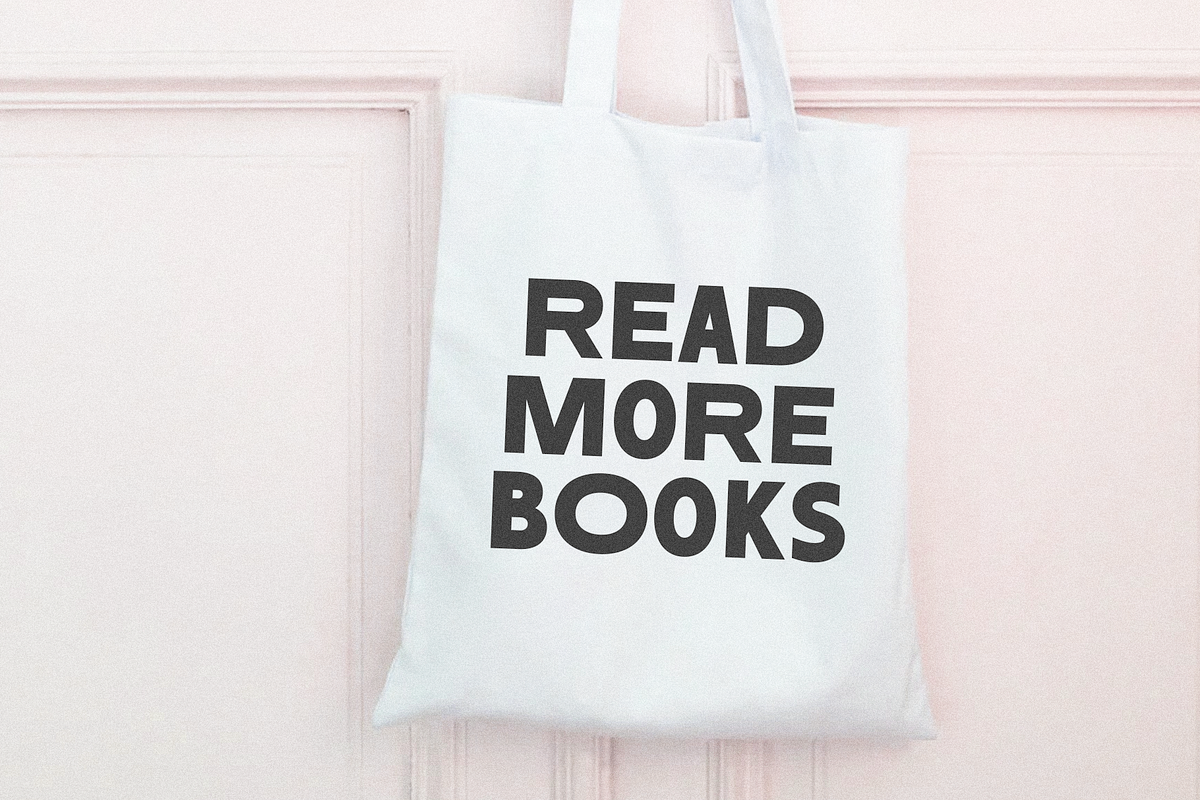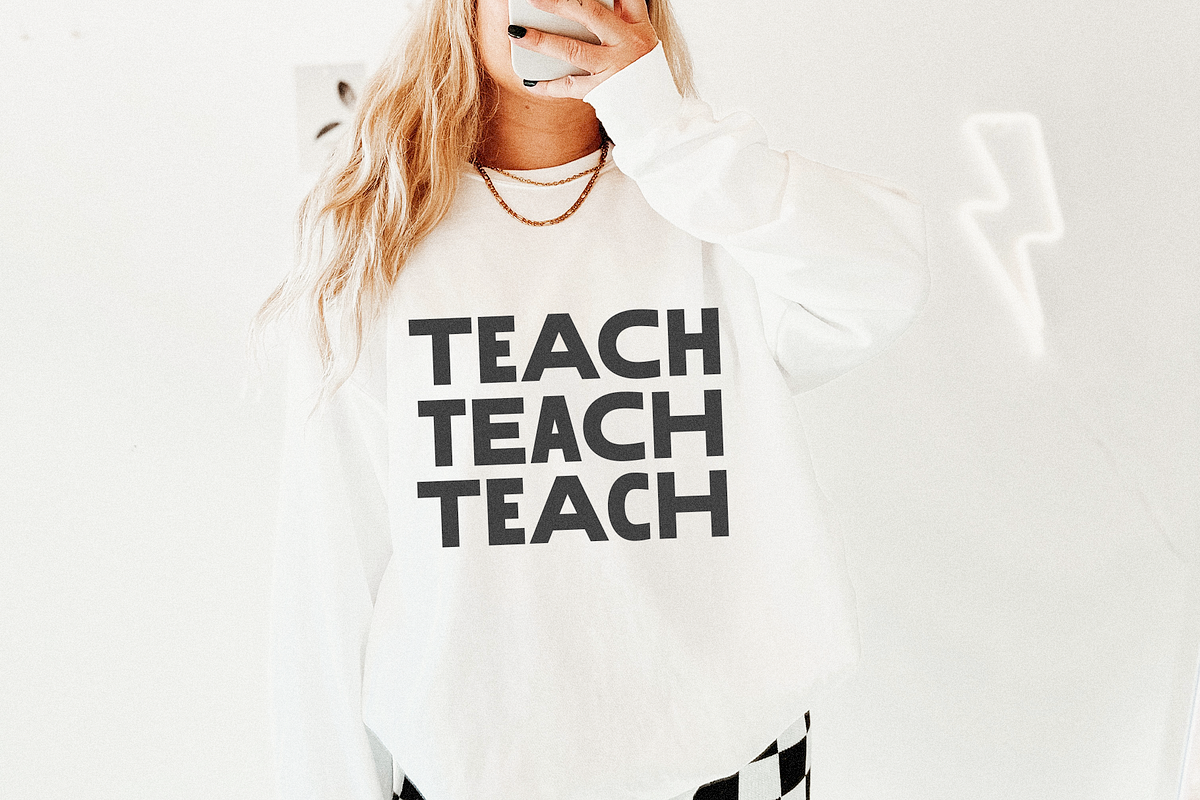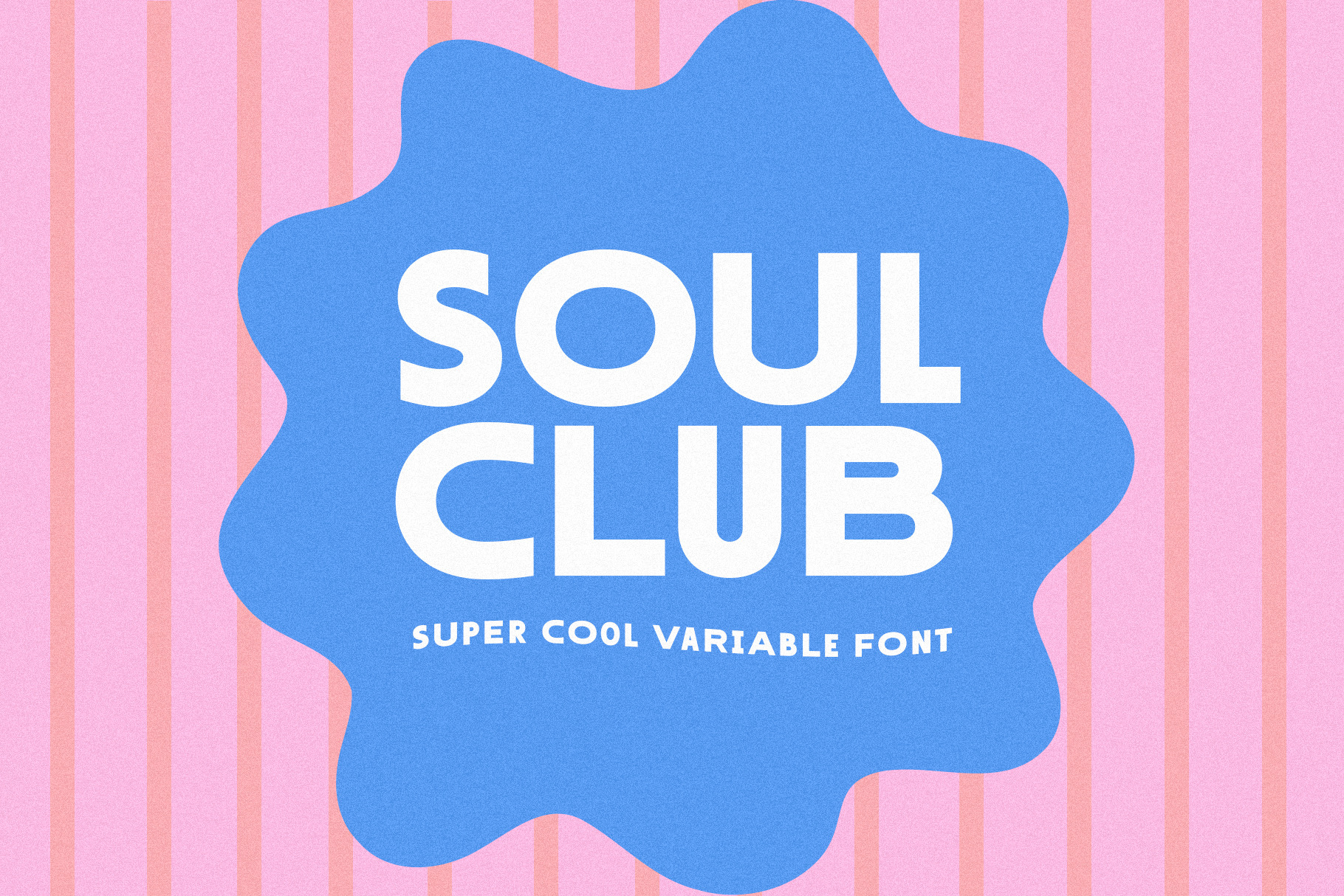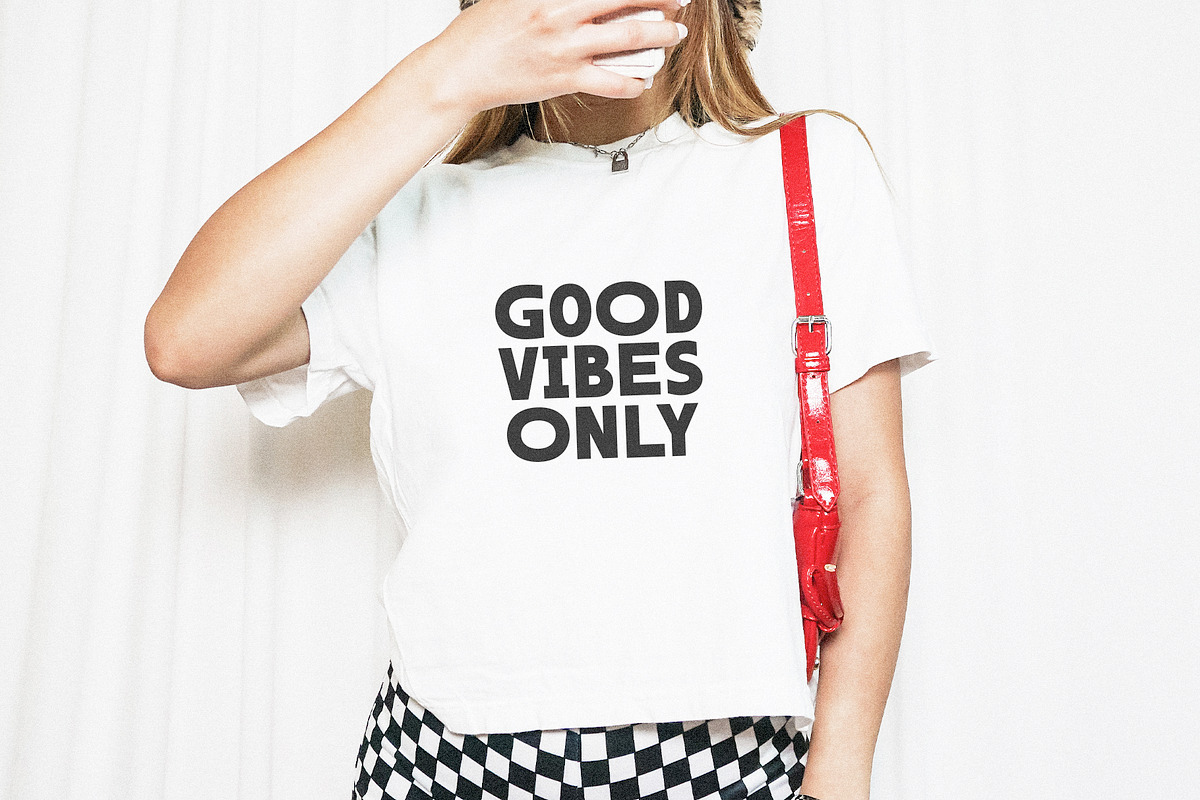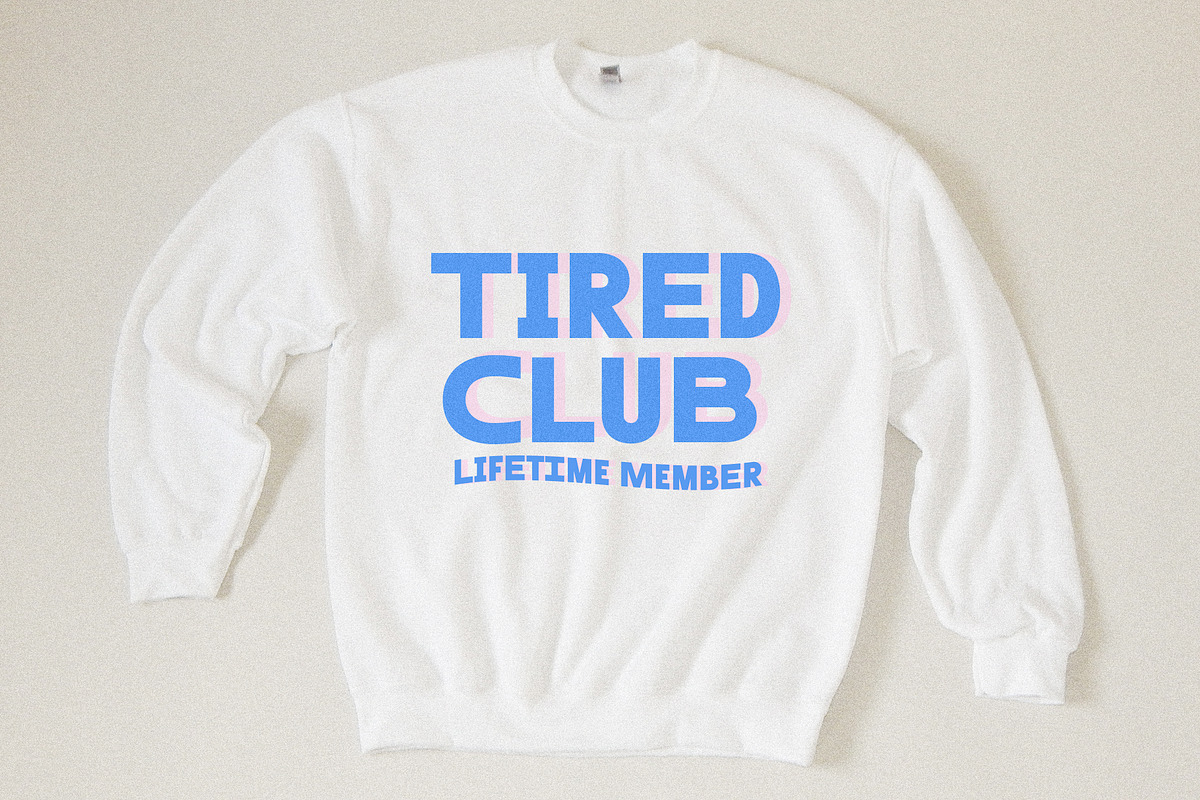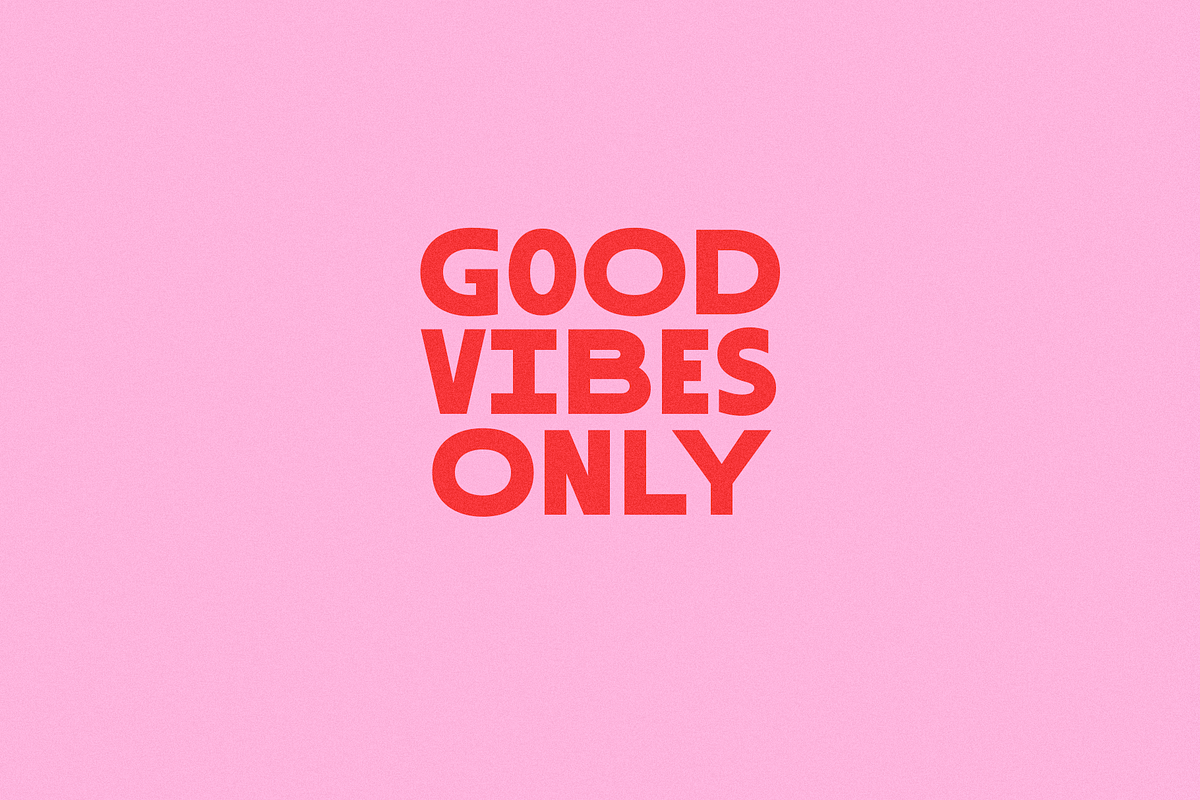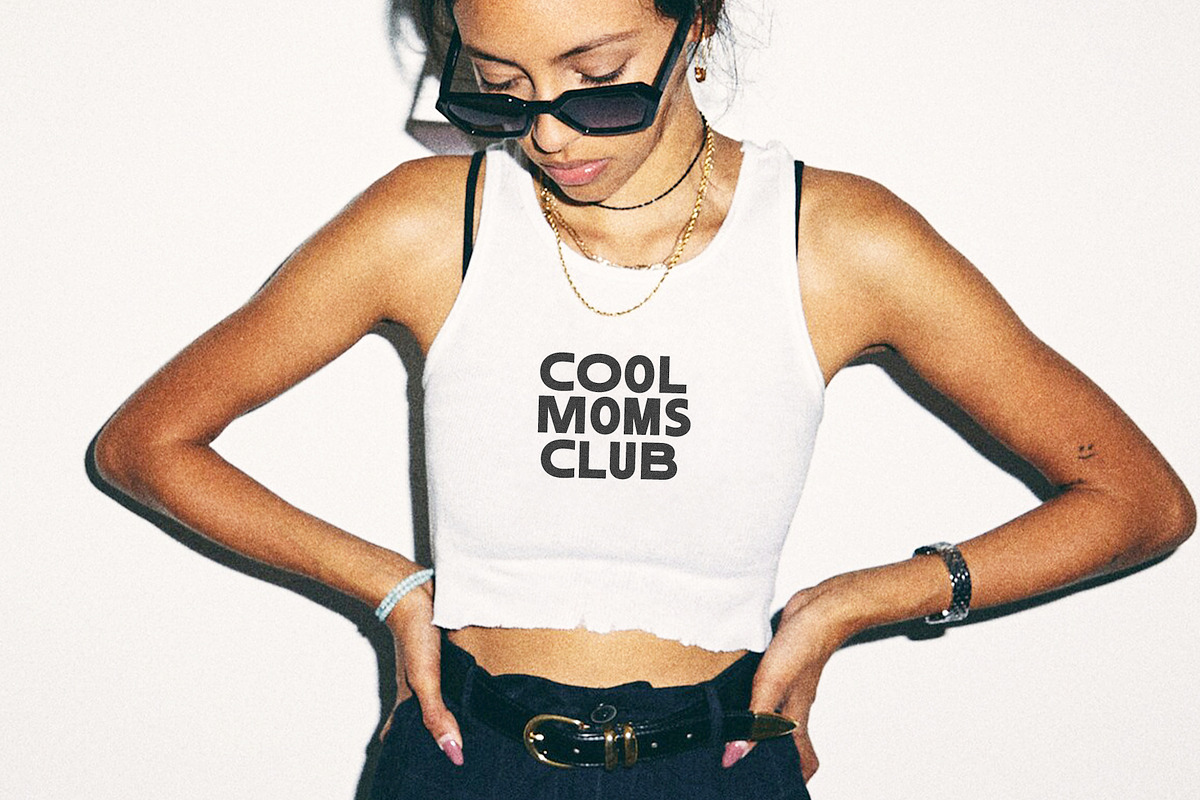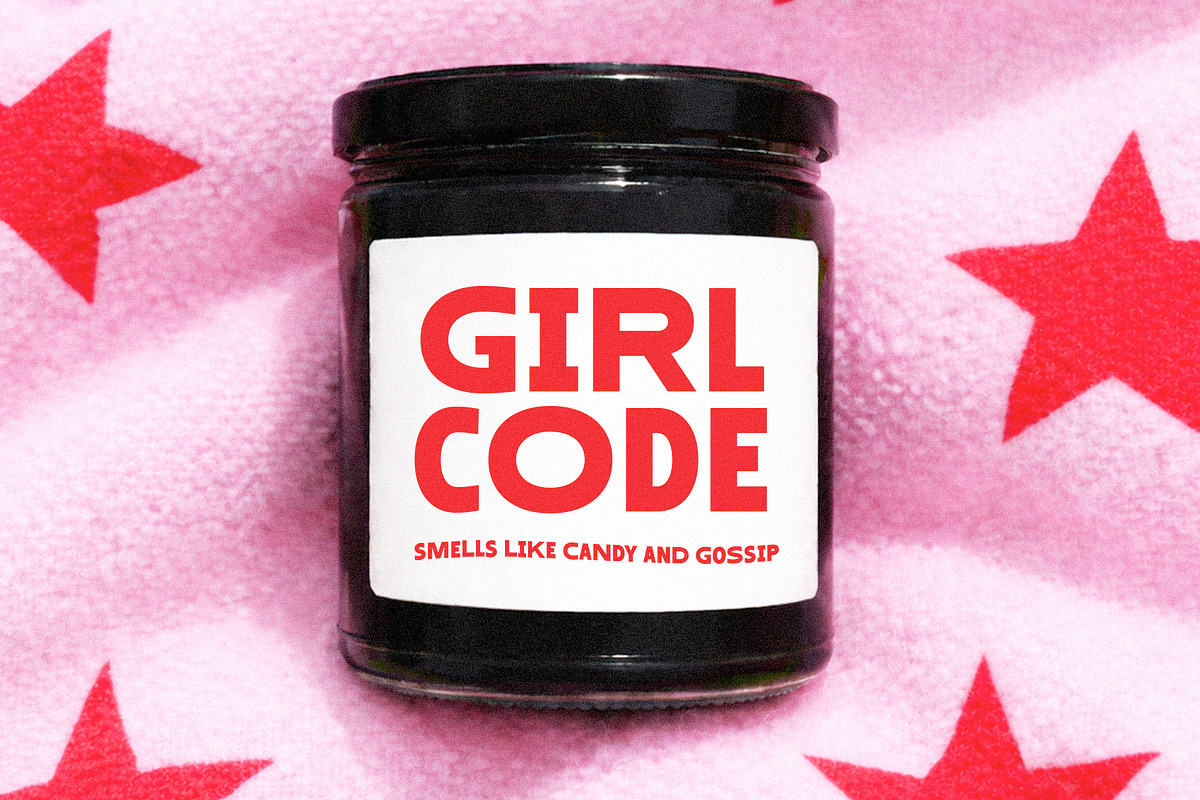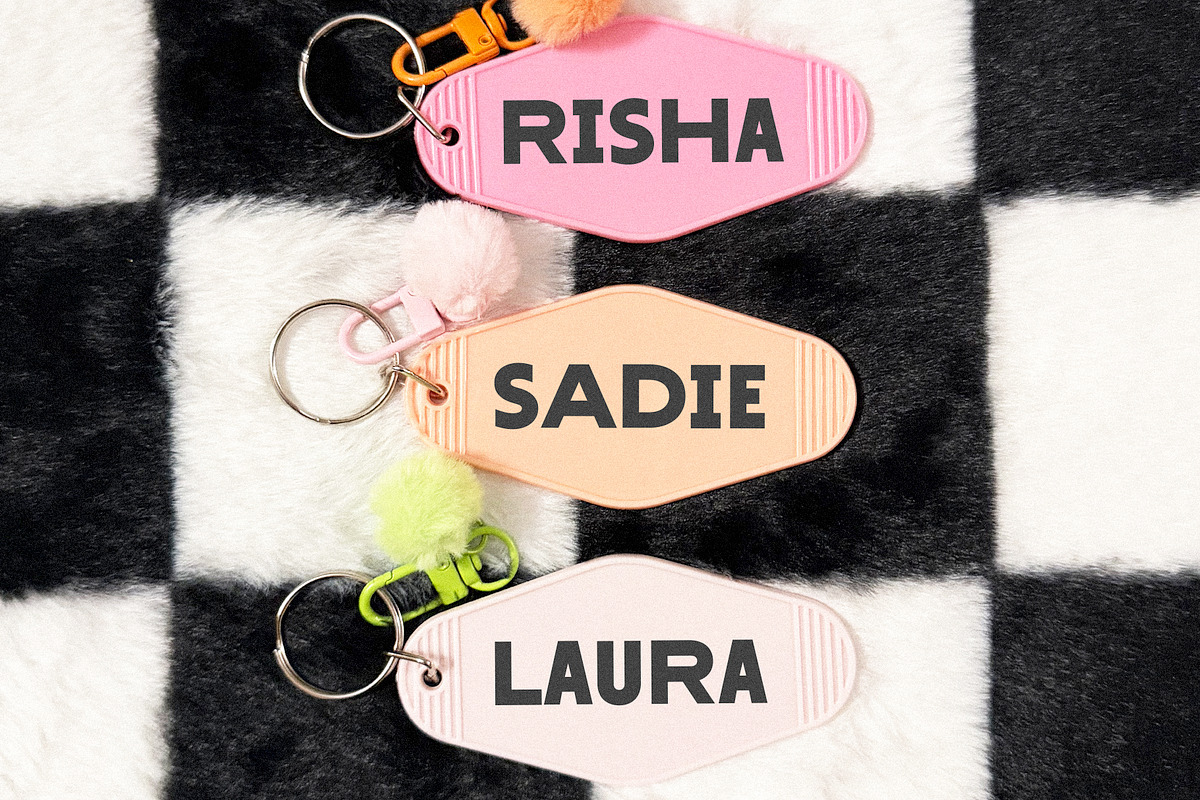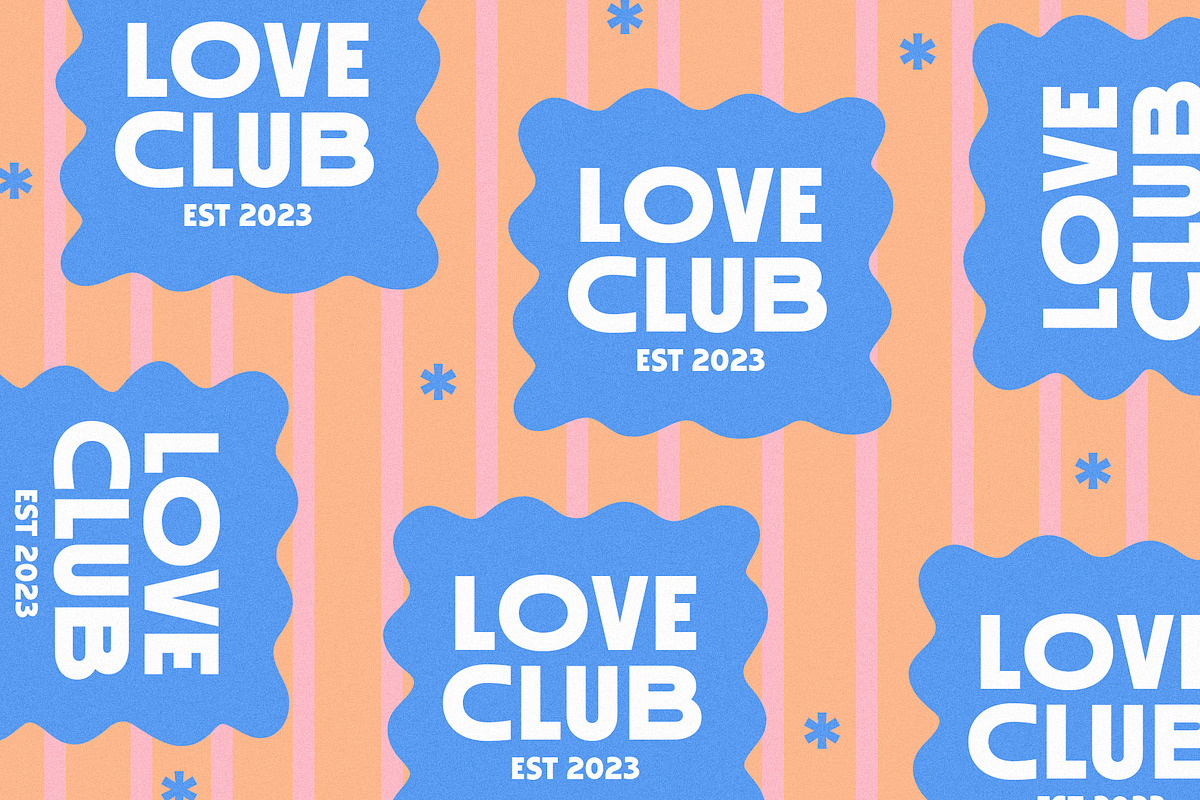
Soul Club | Trendy Sans Font
Soul Club is a trendy sans with variable widths.
This is a capital letters only font. Use the lowercase letters for a condensed style and the capital letters for a stretched sans.